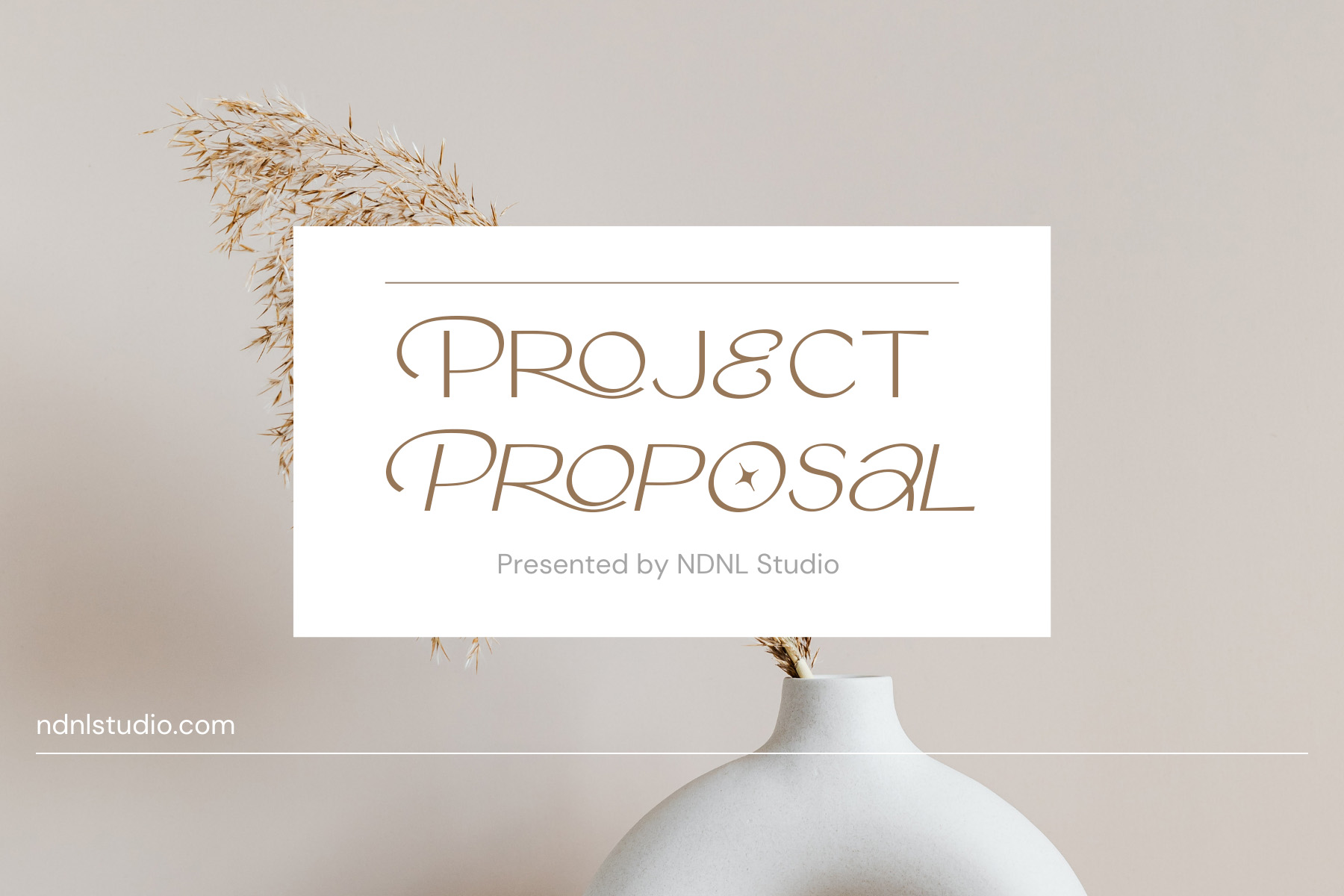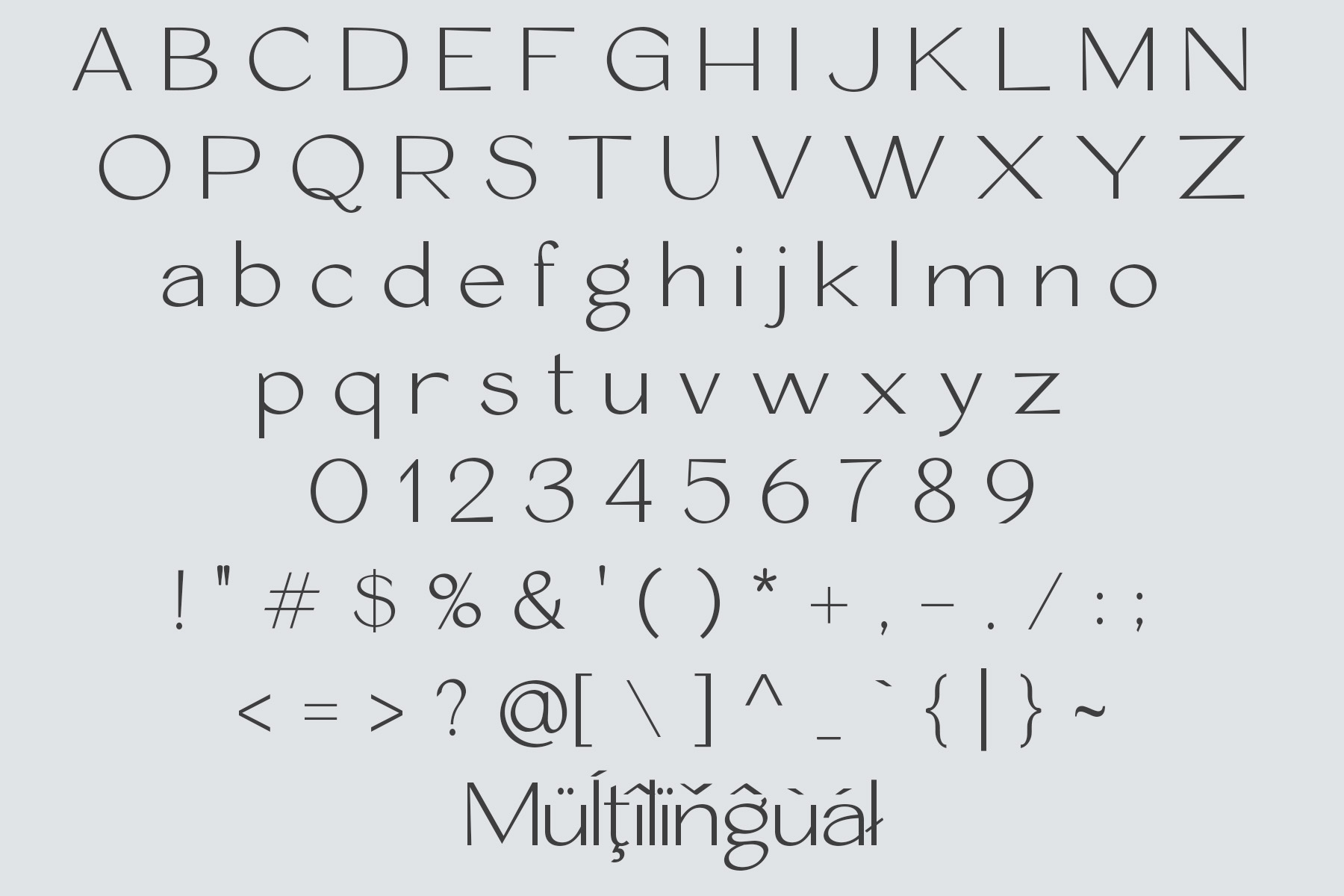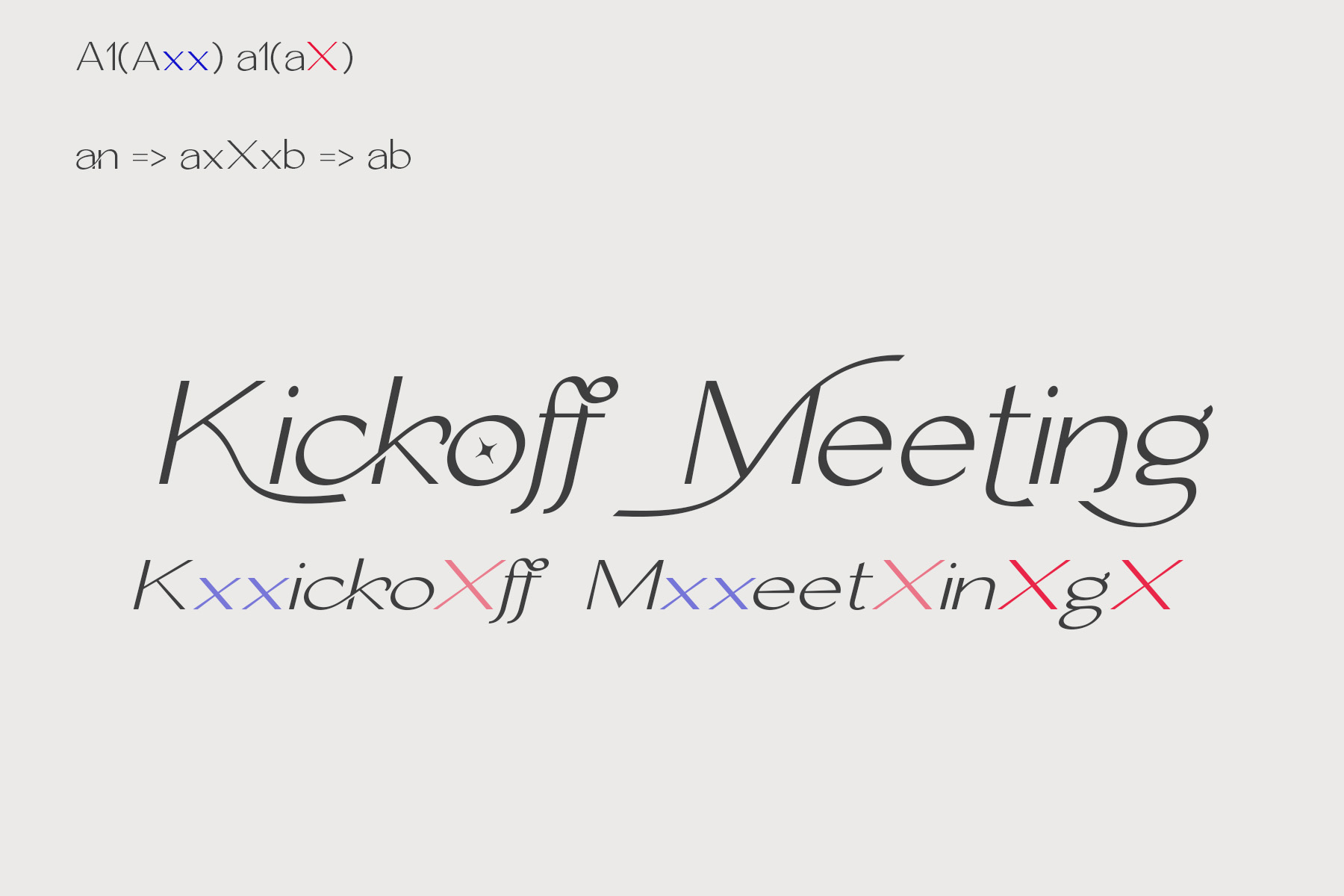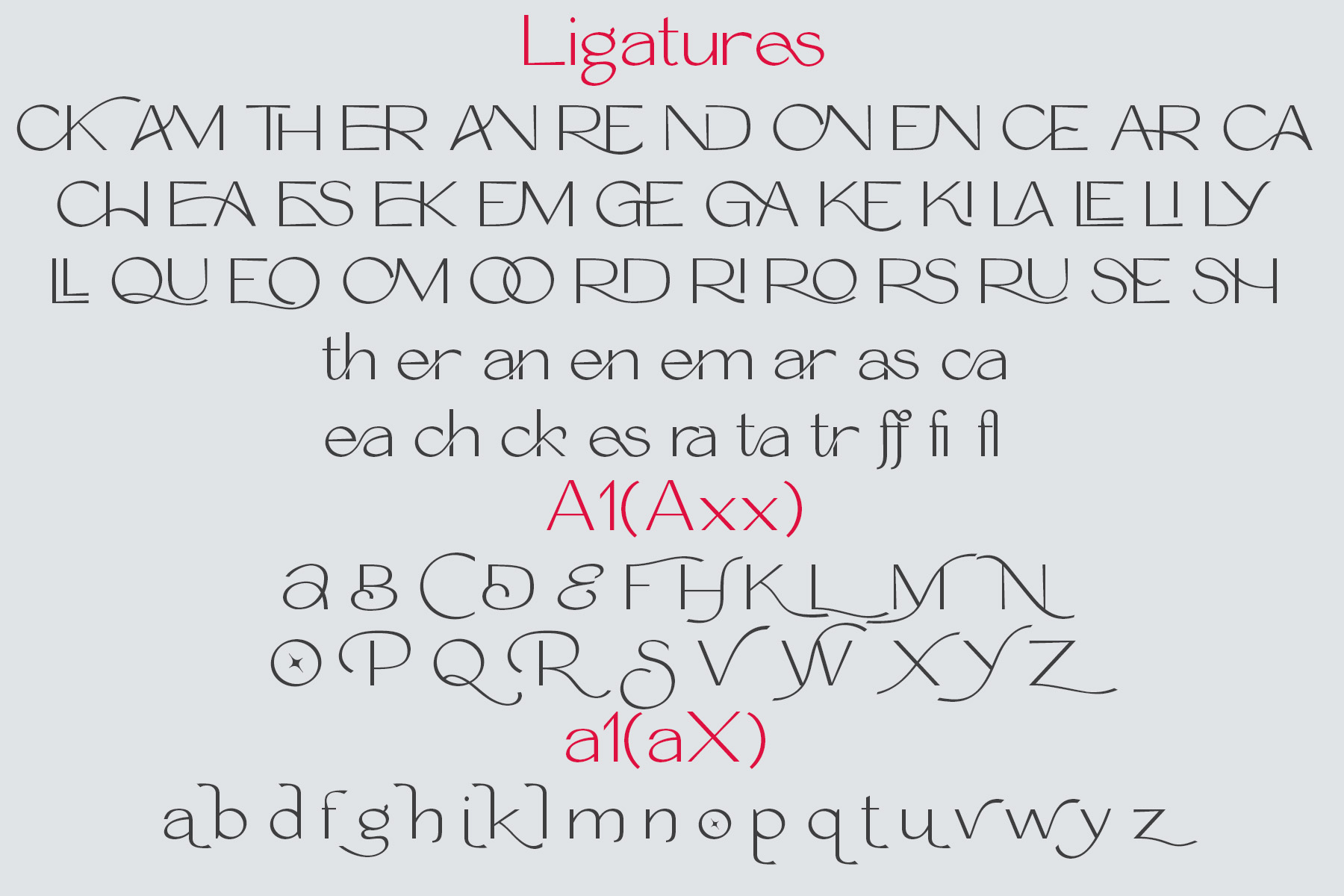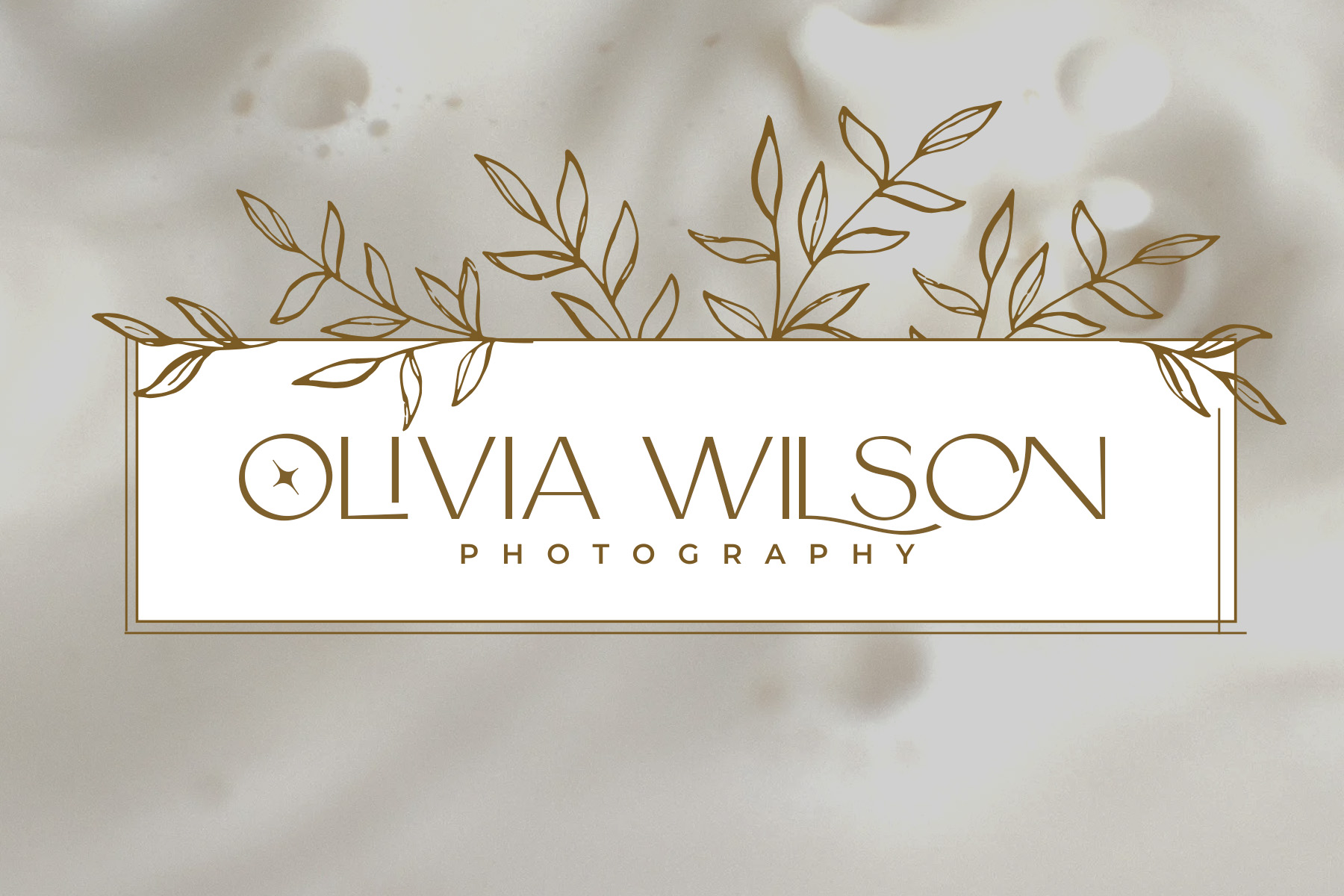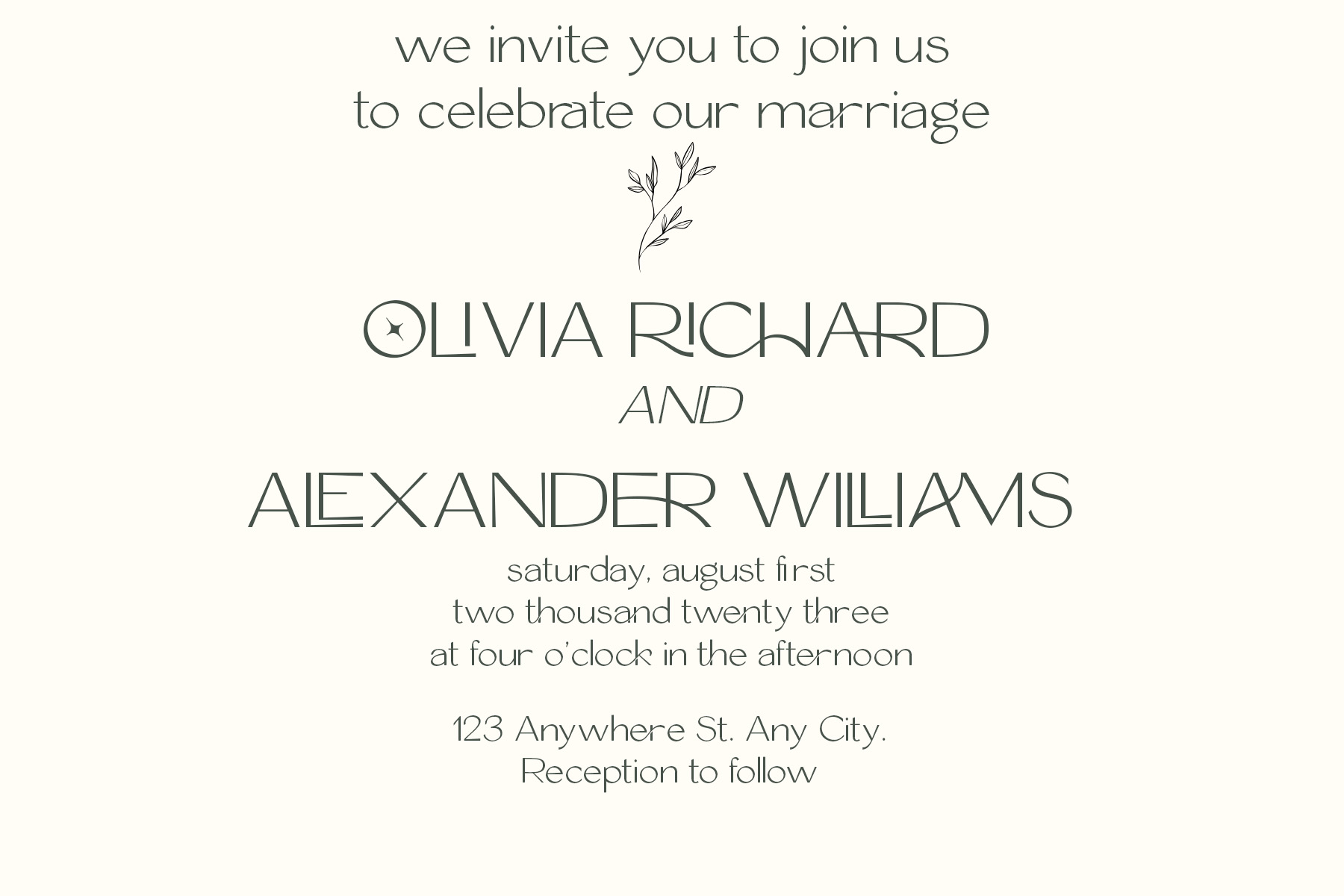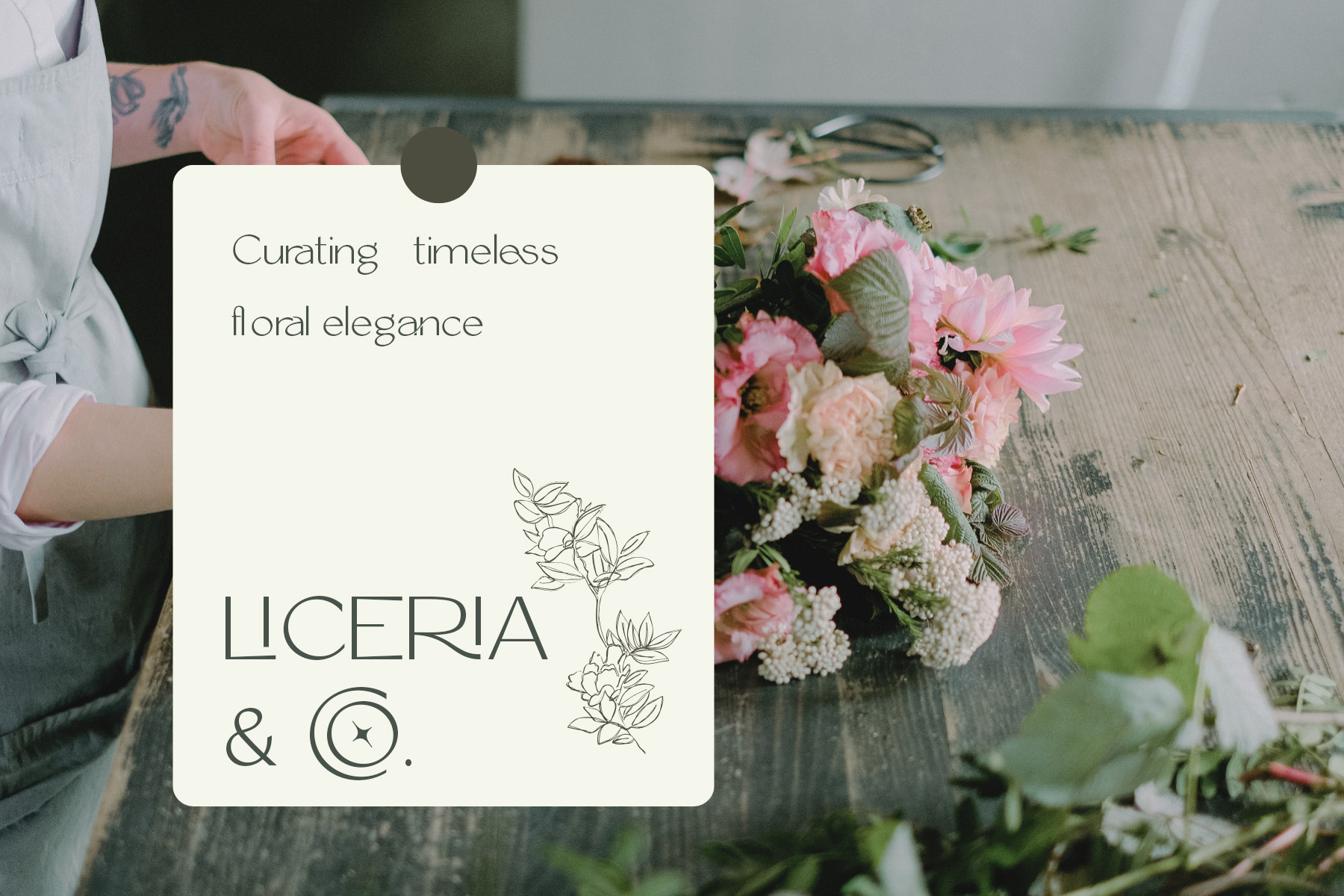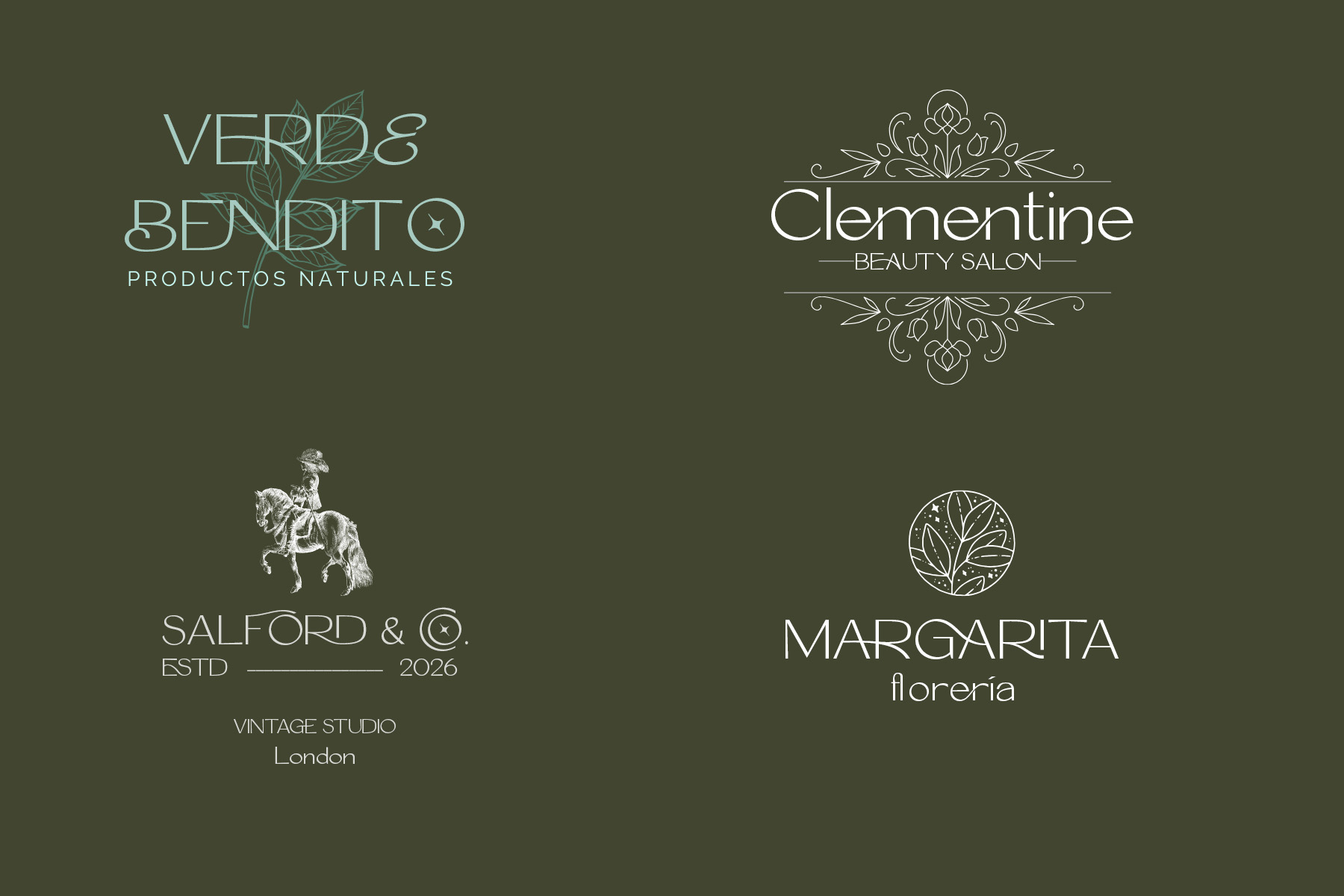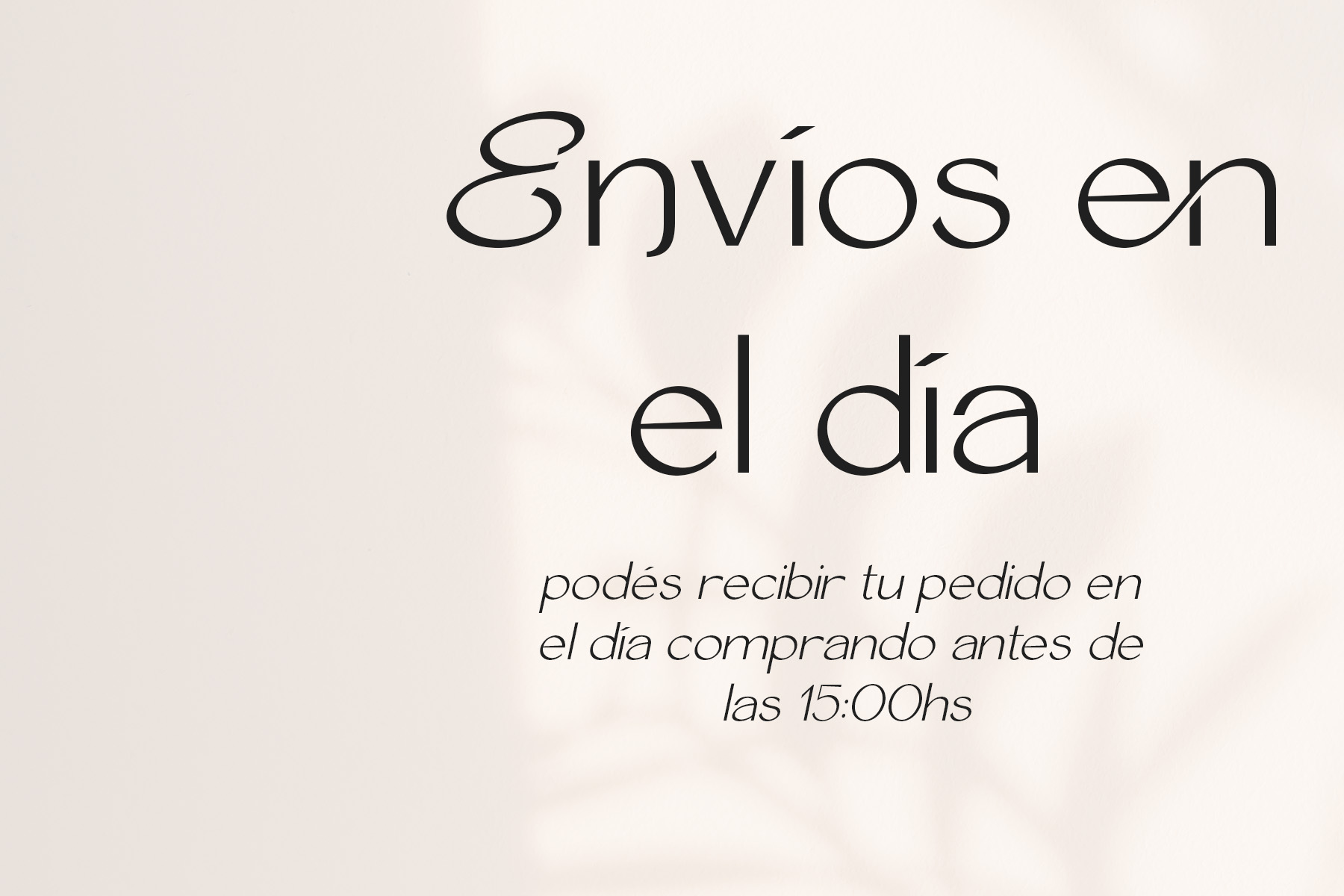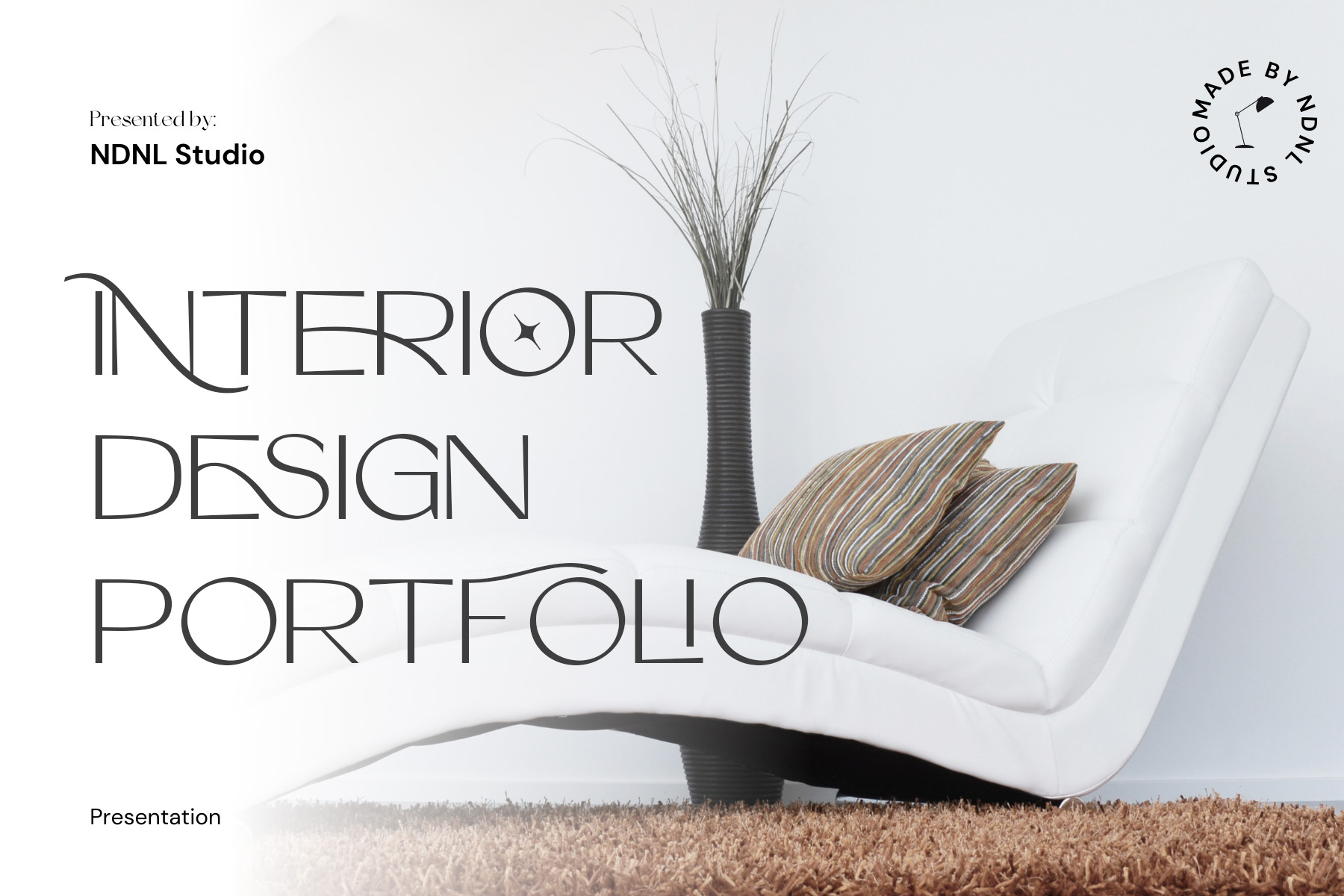
Zorckas – Sans Serif Font
Zorckas
Introducing Zorckas!
Zorckas is a modern minimalist Sans-Serif Font defined by its clean lines and refined geometric details. Its balanced structure and distinctive design elements create a sophisticated, contemporary, and visually striking appearance.
Zorckas is идеально suited for projects that demand elegance and simplicity, including branding, logos, interior design, fashion, and creative layouts. With multilingual support, it offers flexibility for a wide range of global design applications.
If the software you are using does not fully support OpenType features (such as Stylistic Alternates), you can still access the decorative characters of the font using the following method:
• Examples:
Axx → Decorative A (if available)
aX → Decorative a (if available)
• And also:
AxX → Decorative A2 (if available)
aXX → Decorative a2 (if available)
aXXX → Decorative a3 (if available)
• To separate ligatures: Insert the shortcut xXx between two characters.
ab → axXxb → a b